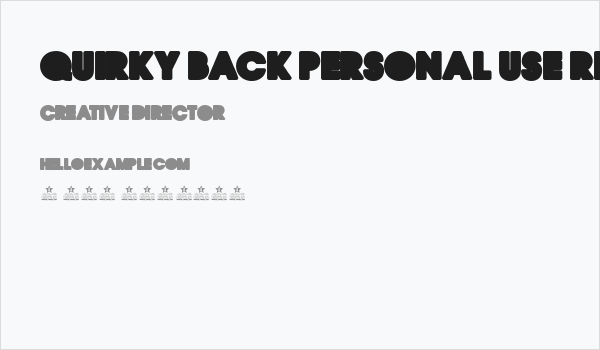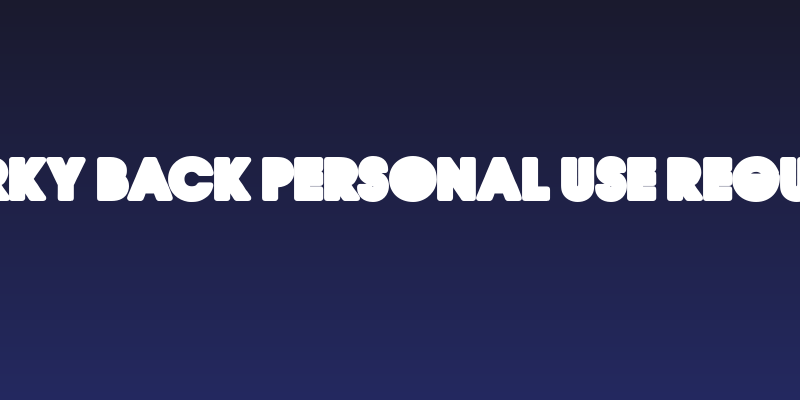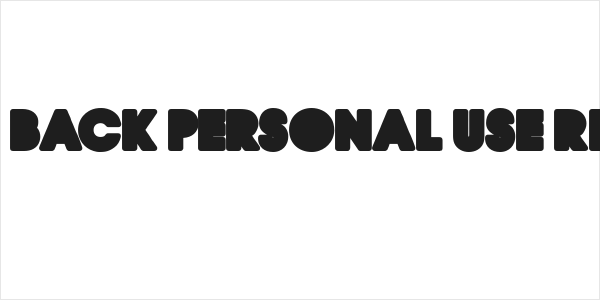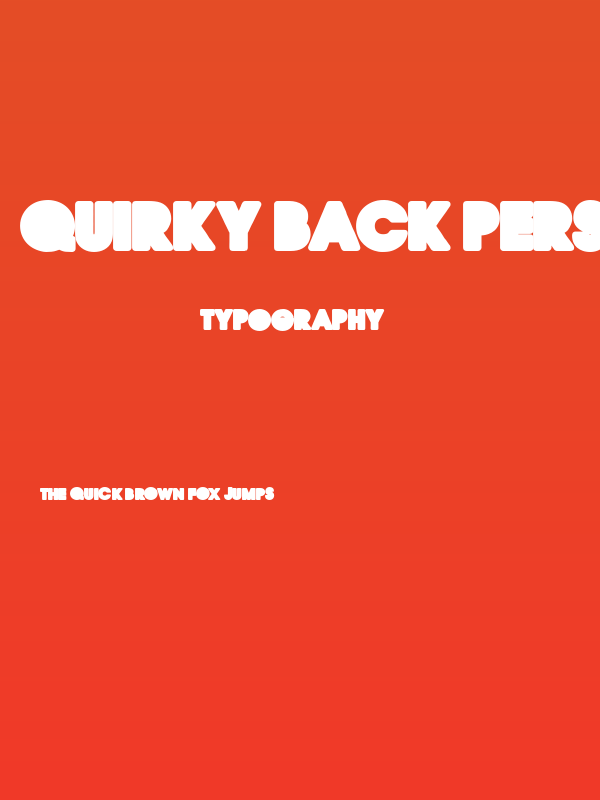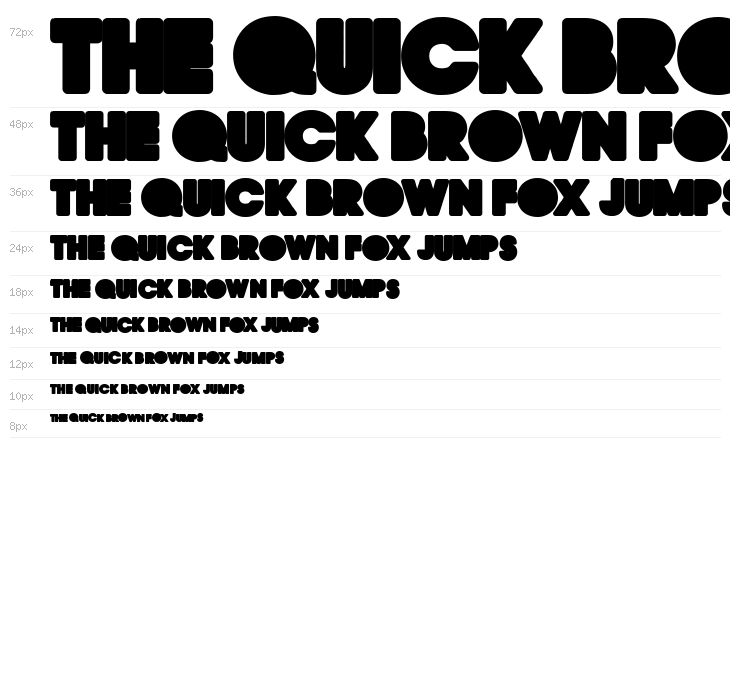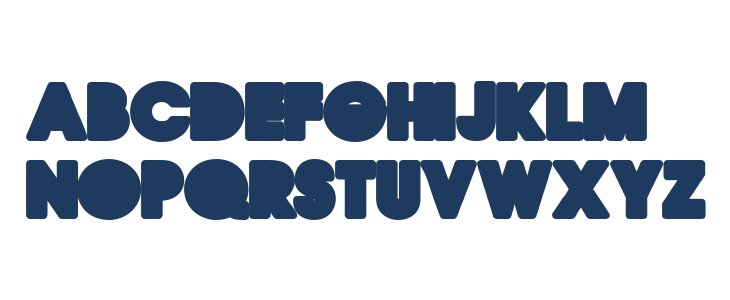
QUIRKY BACK PERSONAL USE Regular Font
QUIRKY BACK PERSONAL USE Regular Description
This font features bold, rounded characters with a playful and quirky style. The letters are uniformly thick, creating a strong visual impact. The uppercase letters are particularly striking, with a consistent width and height that emphasize their boldness. The overall design is modern and eye-catching, making it suitable for creative and fun projects. The font's unique style is characterized by its heavy weight and rounded edges, which add a sense of friendliness and approachability. It is ideal for use in designs that require a bold statement, such as posters, headlines, or branding materials.
| Proposed Projects | Ideal for posters, headlines, branding, and creative projects requiring a bold statement. |